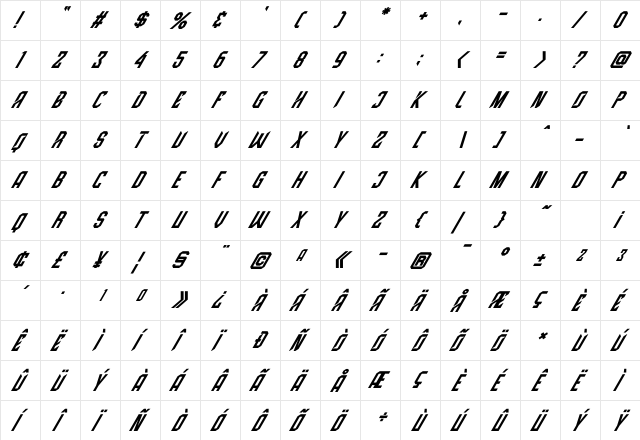
High Jersey Italic Regular
Design Context for High Jersey Italic Typeface
High Jersey Italic has the bold swagger of sports branding: strong, assertive letterforms designed to dominate headlines and jerseys alike. Its italic angle brings a sense of urgency and motion to the letterforms.
A natural choice for gym brands, fantasy sports, jersey lettering, and action-driven headlines.
Font Pairing: Use alongside a condensed or geometric sans for supporting copy — keep the pairing bold, functional, and free of ornament.
Pro Tip: Use High Jersey Italic in all-caps headlines where its athletic energy can fully express itself. Pair with a solid, simple sans for supporting text.